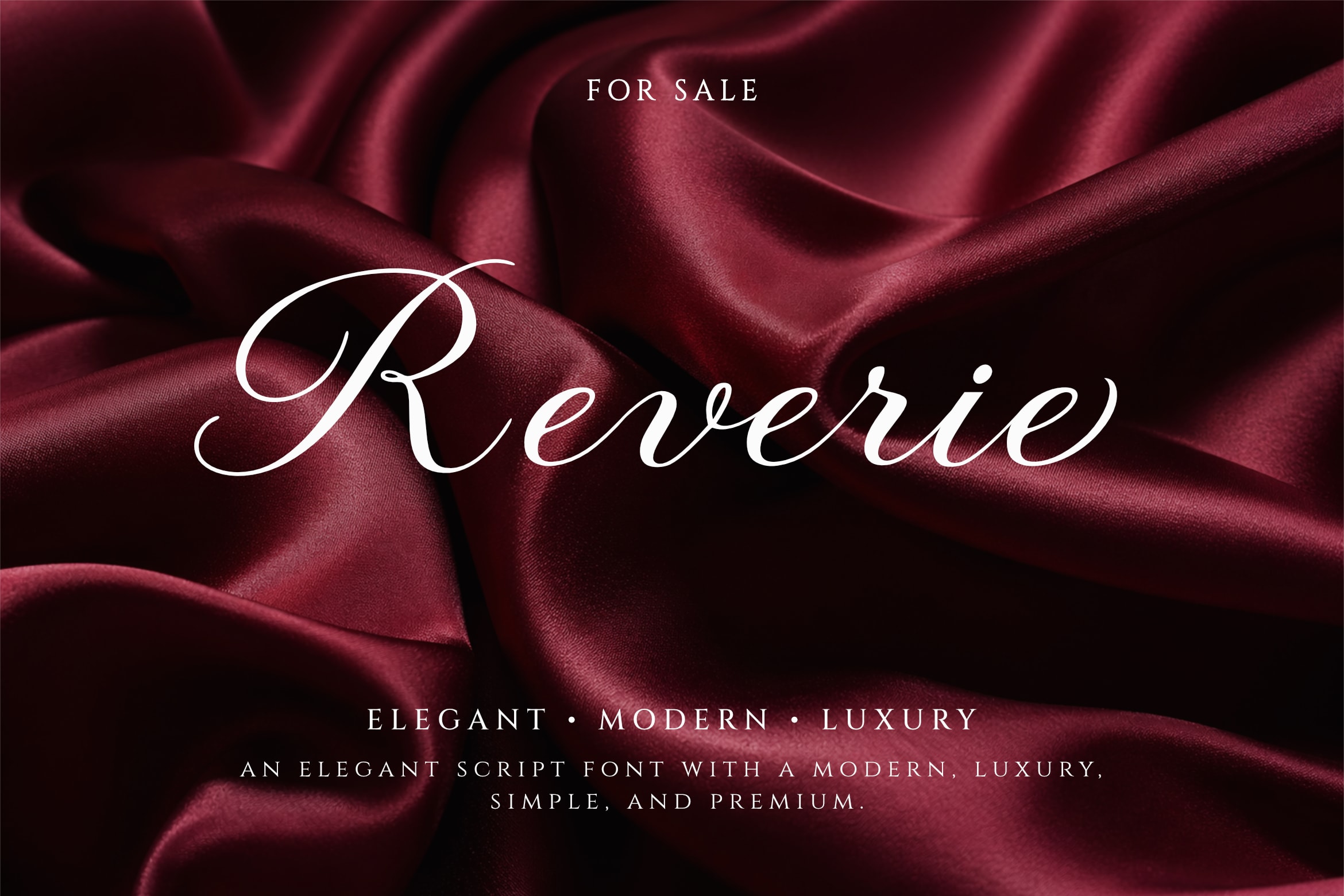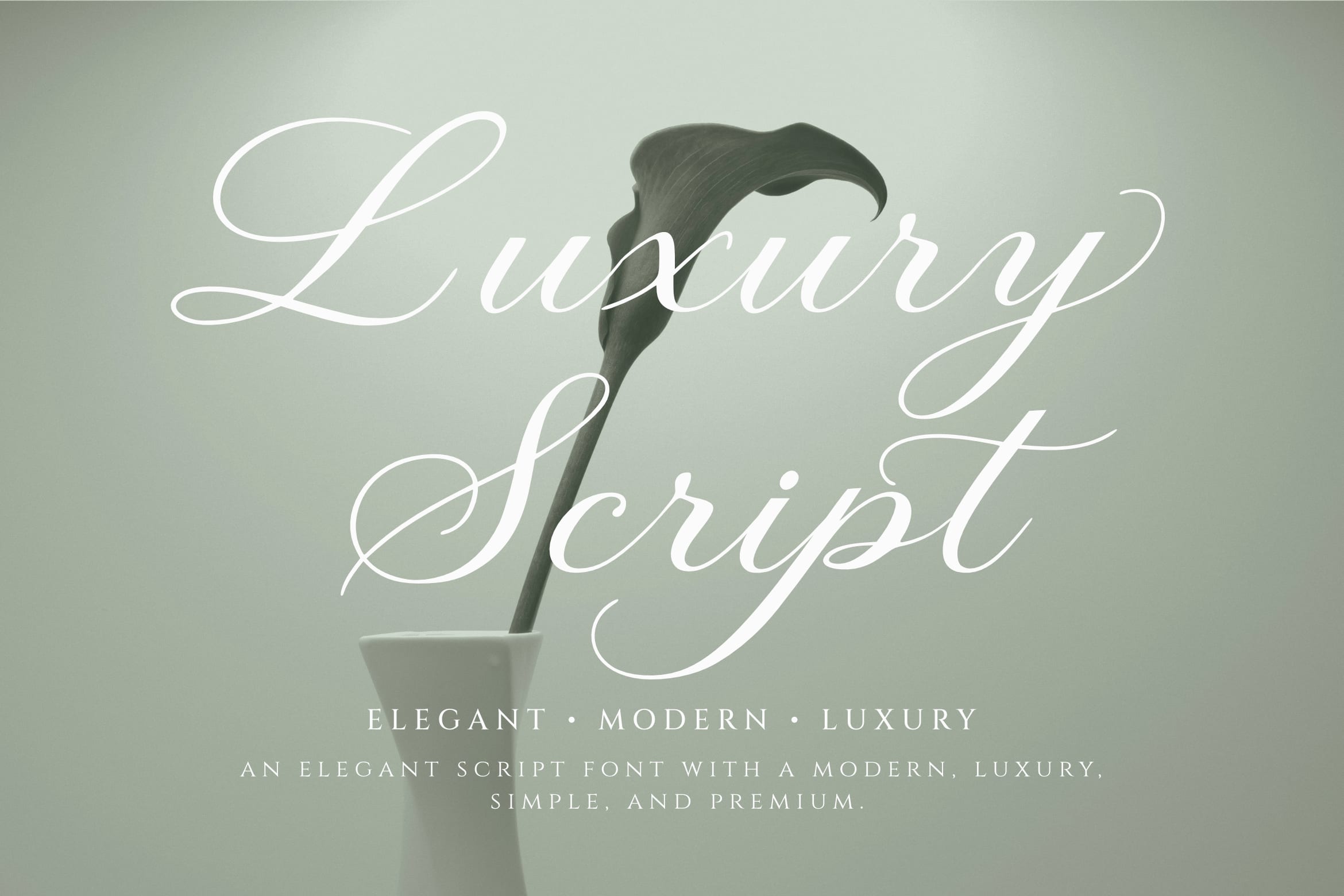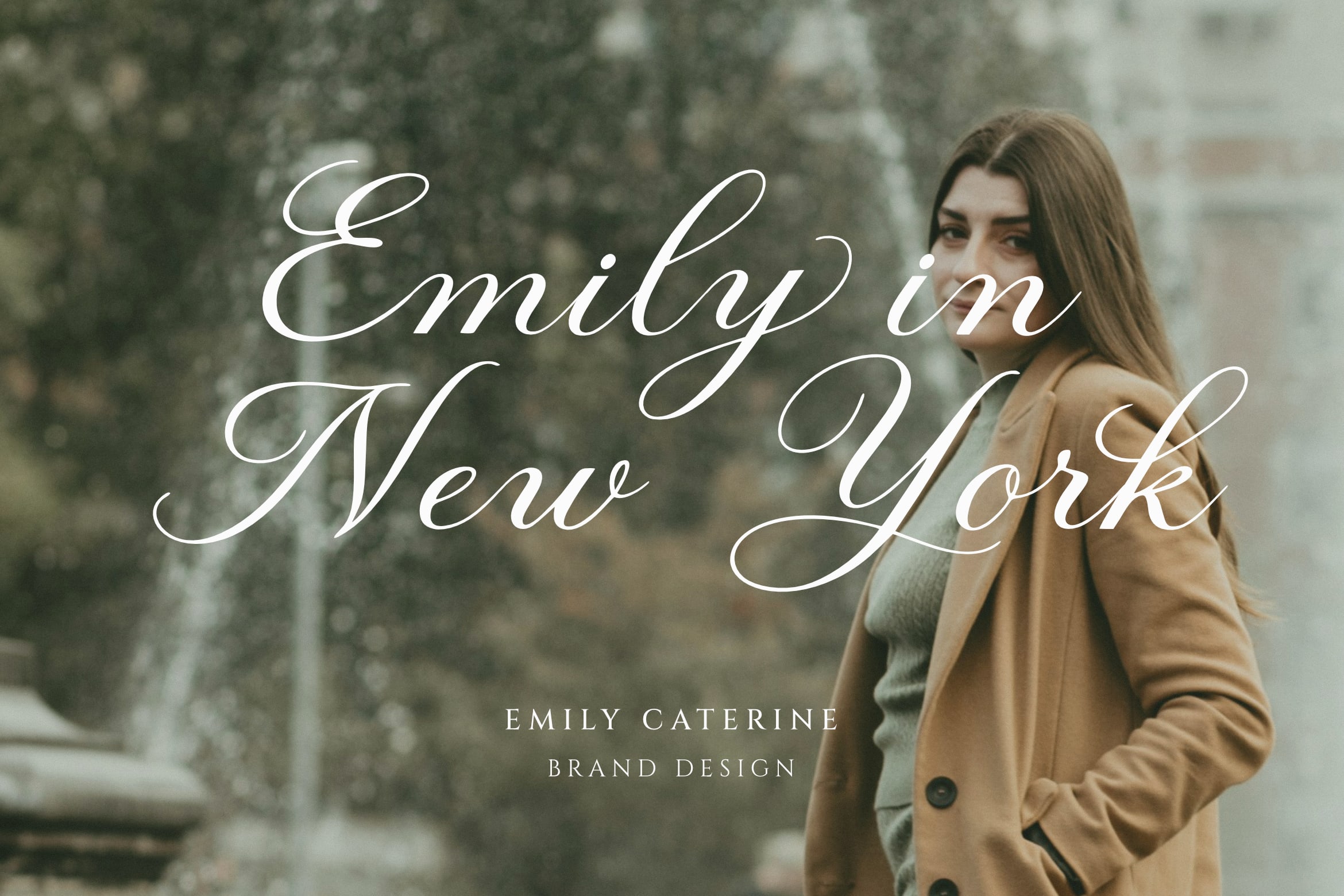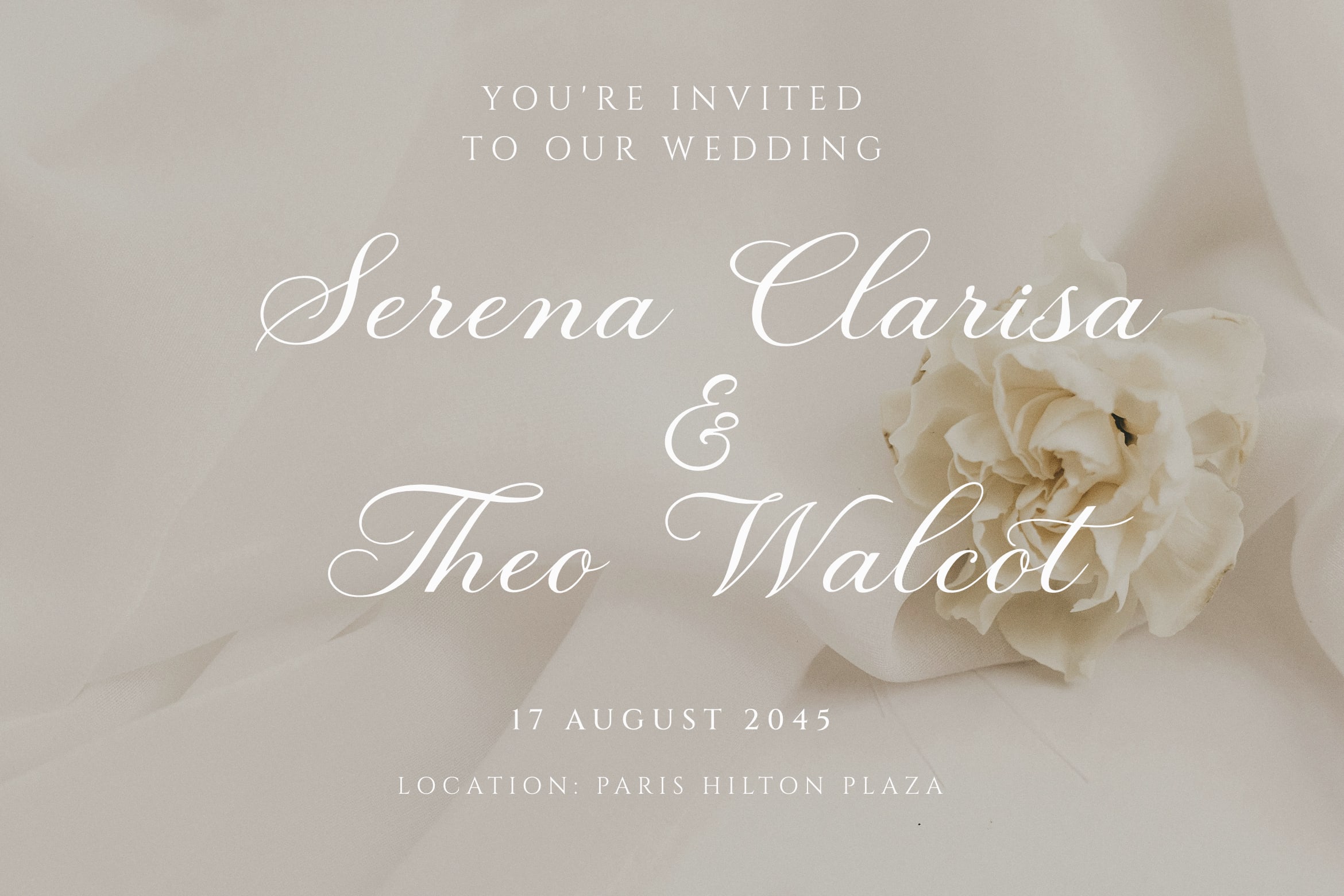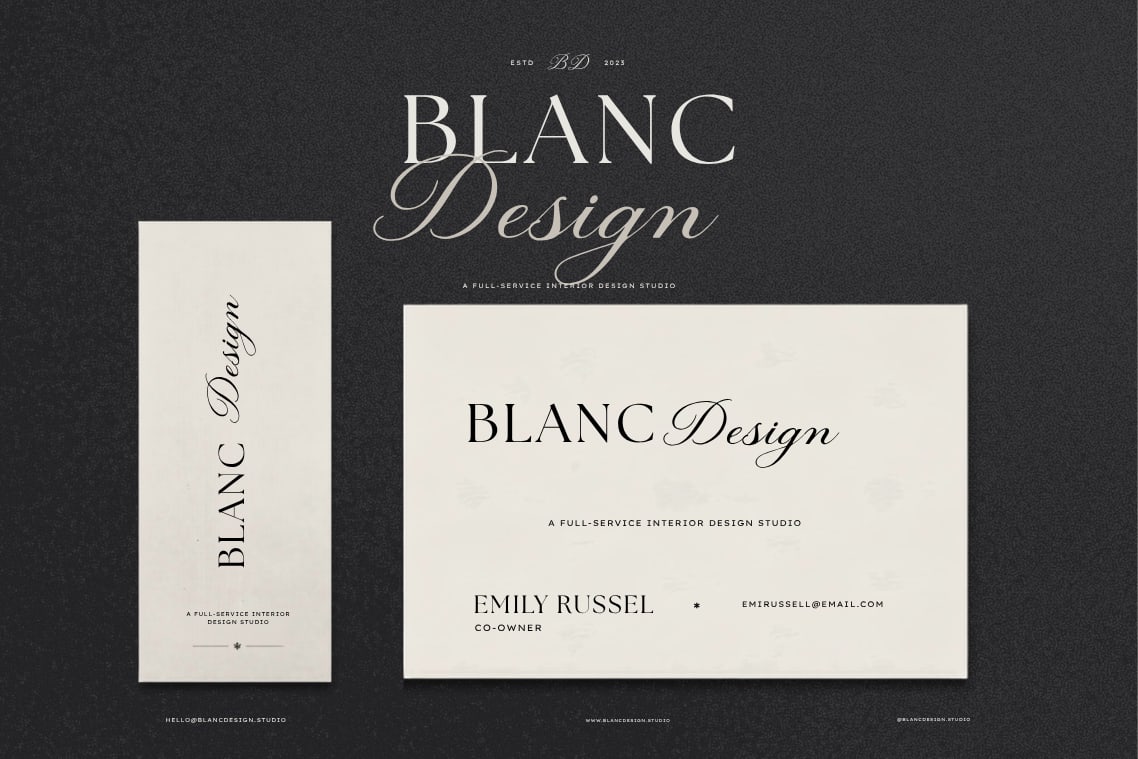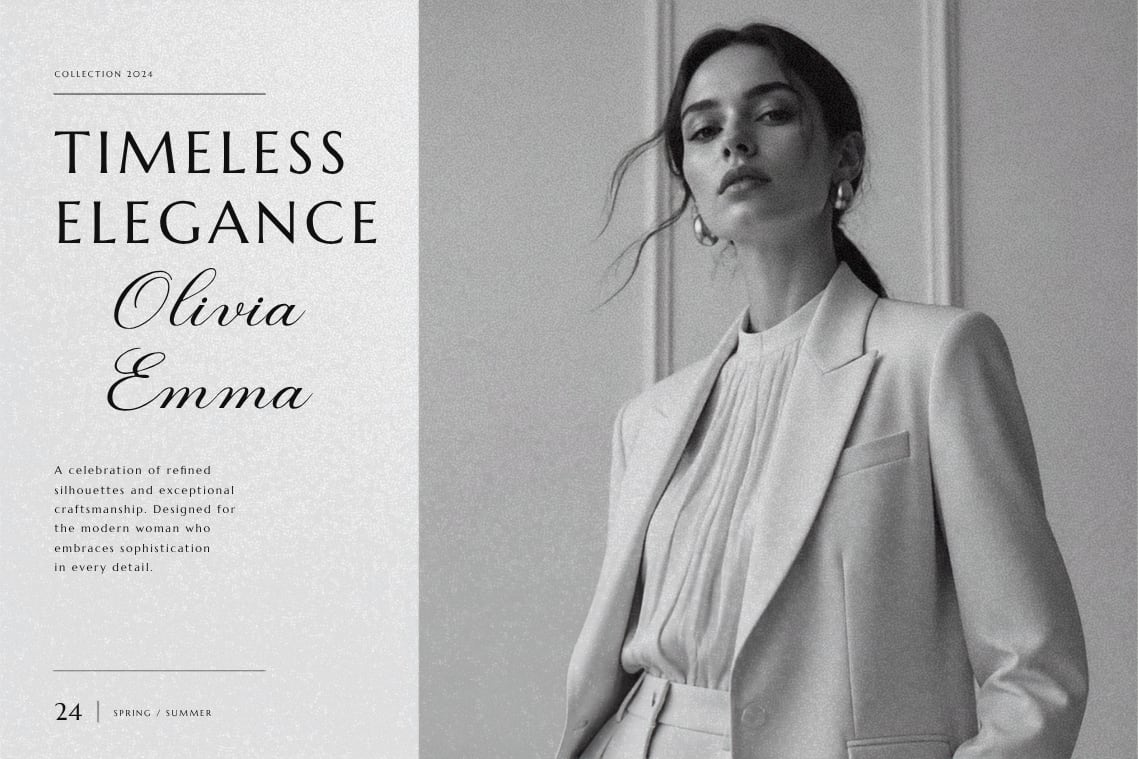
Ideal for luxury branding, beauty packaging, fashion campaigns, boutique logos, wedding invitations, social media content, and editorial projects, Reverie helps transform ordinary typography into something memorable and premium. Its clean and stylish appearance makes it versatile for both minimal and high-end design aesthetics.